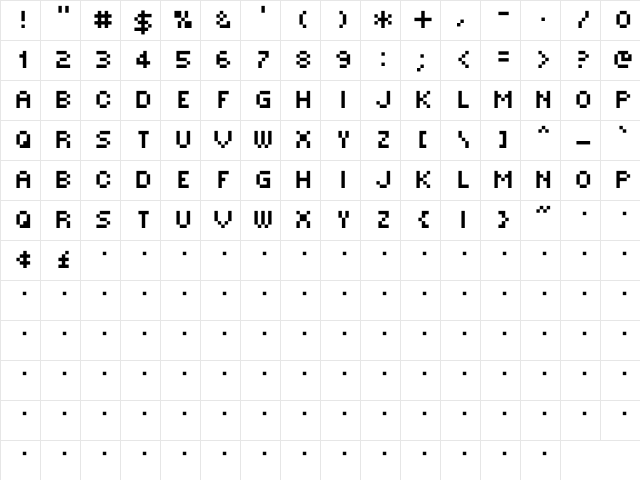
MINI 7 Condensed Regular
Design Context for MINI 7 Condensed
MINI 7 Condensed is a composed and adaptable typeface that performs quietly and consistently across a wide range of design contexts. Its narrow stance lets it pack a punch even in space-constrained designs.